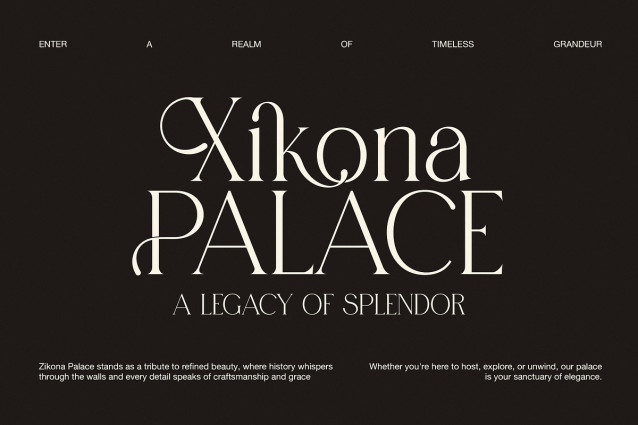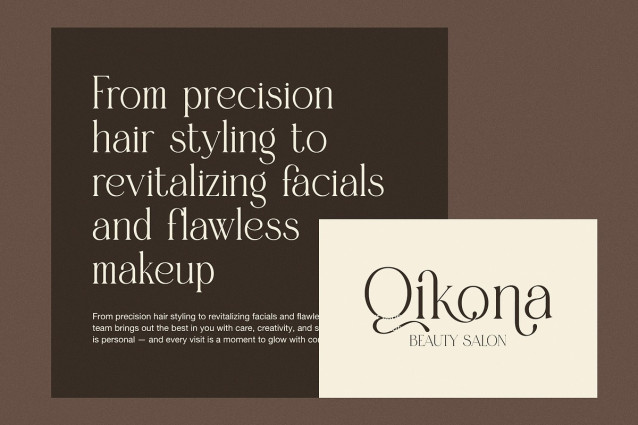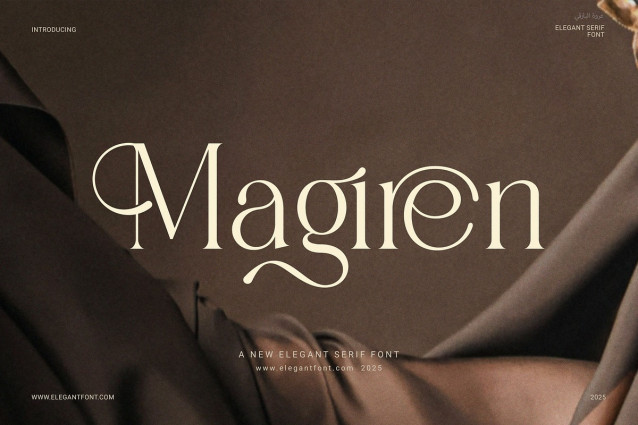
Magiren Font
Magiren Font – Elegant Serif Font is a stylish and modern typeface created to bring elegance and clarity to your designs. While it follows a classic serif structure, it introduces a fresh and contemporary touch that feels both refined and timeless. This makes it ideal for designers who want to build strong visual identities without losing sophistication.
Thanks to its balanced proportions and clean lines, Magiren is suitable for a wide range of creative uses. From branding and packaging to magazines and digital content, this font adapts beautifully to any layout. Moreover, it includes functional ligatures that add a natural, flowing character to your text. As a result, your designs will look more polished and visually appealing.